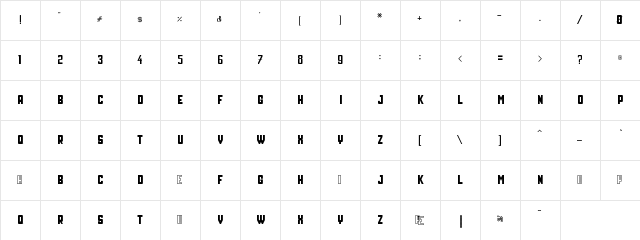
Public Enemies Regular
| Designer | twelvish |
Design Context for Public Enemies Typeface
Public Enemies takes a measured approach to typography — its balanced proportions and neutral character make it a reliable workhorse for both digital and print work.